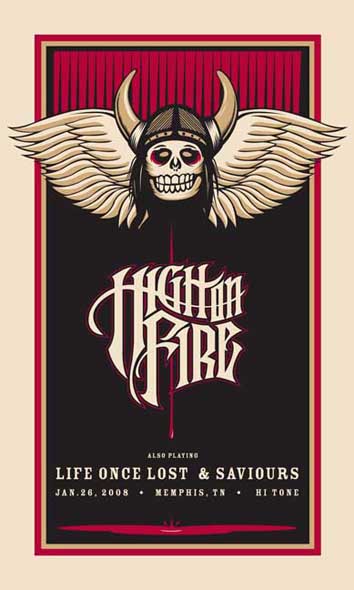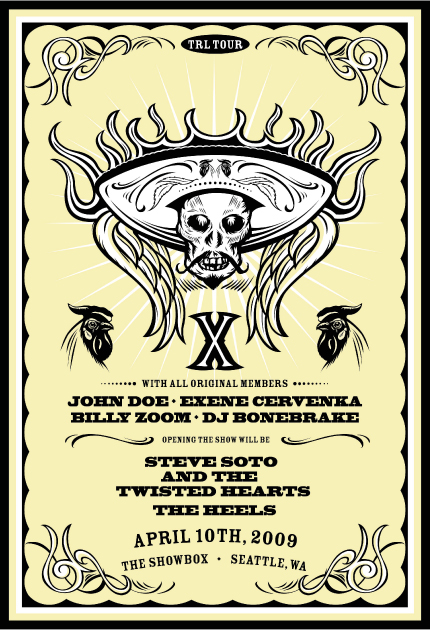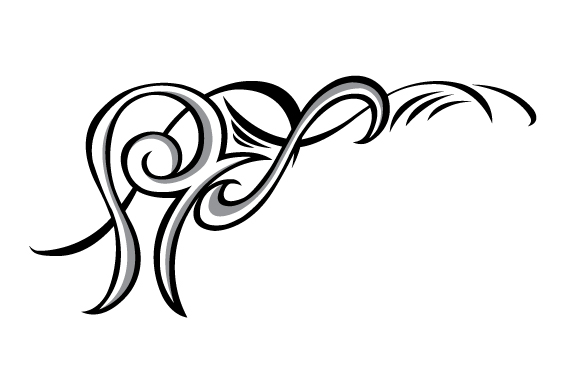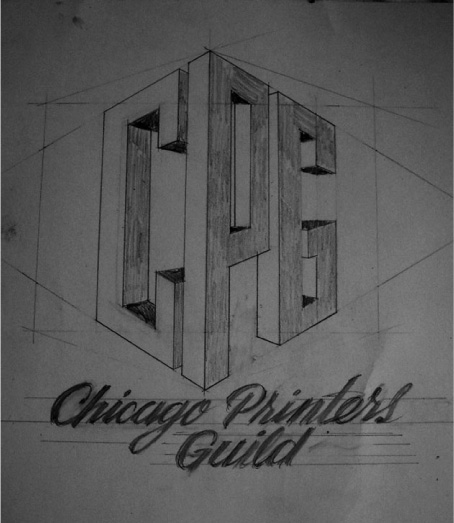
I'm so glad. I do handlettering and just love the art of it all. It's a talent that still blows my mind
I do sketches and the clean them up in Illustrator with the pen tool by clicking and bending. I don't just hit Live Tace. It never seem to come out right.
I'm in the process of get artwork off my old drive (computer died) that has alot of my handlettering stuff.
Here's some swirls I sketched out then re-traced them in illustrator
I worked on a logo for some friends
here the original sketch/idea Re-traced with pin tool in Illustrator
This is a great design/logo with lots of impact Henry. It gives me a 1920's feel. also the colours look right for it giving an industrial feel with the way the light is hitting the sides.
I use to work at a screen printing/sign shop here in Fresno that has been around since the 1930's
There was artwork/logos that where all hand drawn. They where all completely different from one another
and with so much impact. When I look at old logo's that started from a sketches it reminds me the importance of
finding something that you just can't find in just looking through fonts.
Re: Loco in the house
Here's the seperations. I'll be screen printing it dark to light adding white to the fist color until I get to white
Re: Loco in the house
Something I worked on over the weekend. It's two shades of charcoal on a 36" x 48" canvas